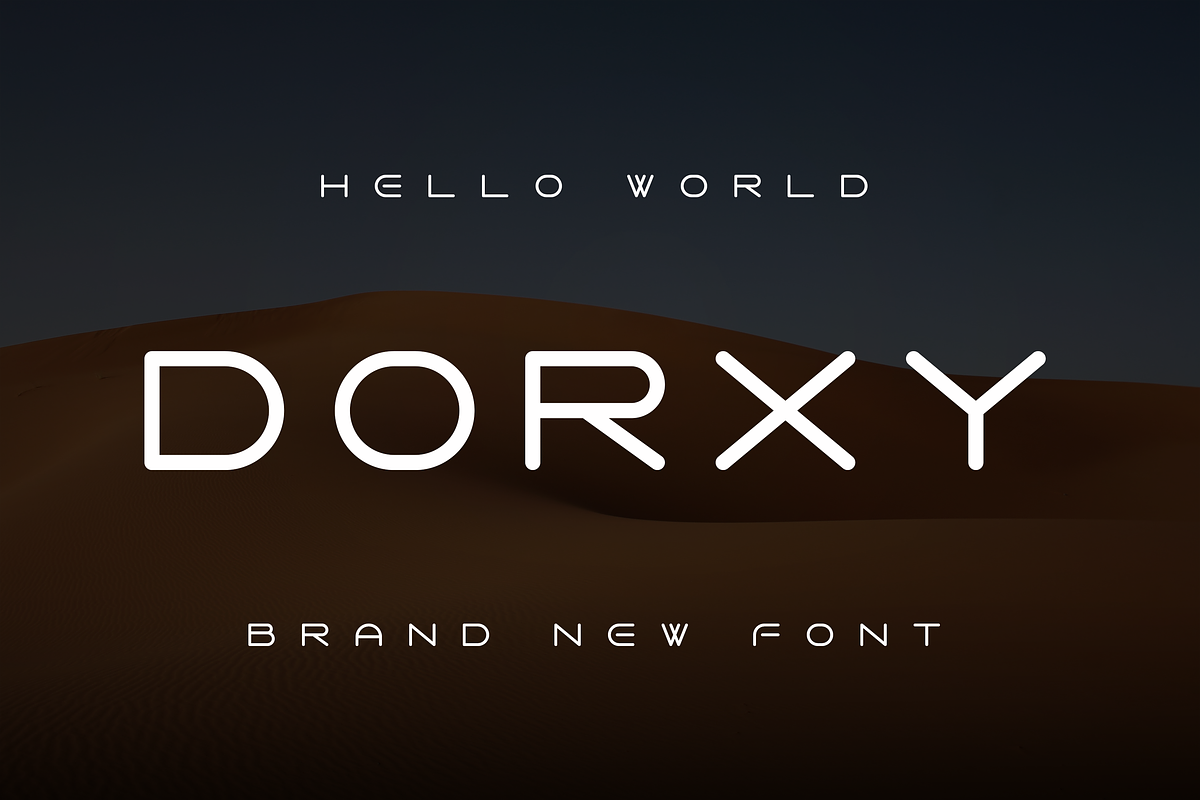
You must purchase this font for commercial use. However, you can download Dorxy Font Free Download for testing purposes. Dorxy is a modern and sleek sans-serif font designed to bring clean lines and professional elegance to your designs. Perfect for branding, logos, editorial layouts, websites, and more, this font provides versatility and readability with a modern touch.
The geometric structure and balanced letterforms of Dorxy make it ideal for a variety of design applications. Whether you're working on a corporate identity, tech-related projects, or contemporary marketing materials, this font adds a polished and professional look to your typography.